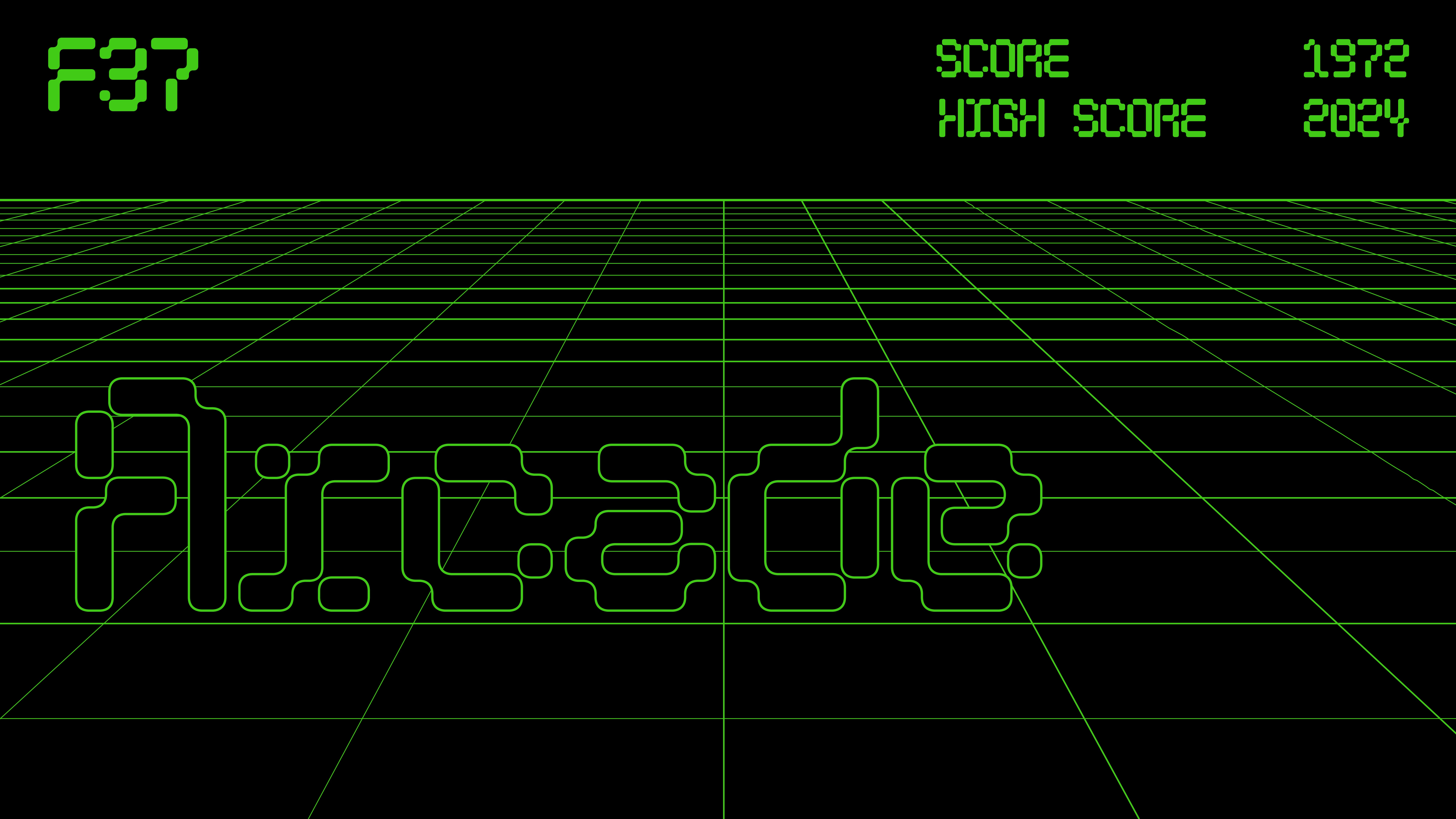
F37 Arcade
Leap back in time with F37 Arcade, a typeface inspired by the iconic arcade aesthetic and informed by Wim Crouwel’s grid-based work.
F37 Arcade is a modular, mono-spaced, and stencil typeface. With a unique combination of modularity and stencil, the letterforms are reminicent of falling Tetris blocks that appear to be on the brink of slotting together. Also prominent throughout the typeface are rounded corners. These reference the rounding effect CRT glow has on type within arcade games. F37 Arcade is further packed with ligatures and alternate characters to keep you playing for hours.
Alexandra Franks
The Designer
Alexandra Franks is a freelance graphic designer and illustrator based in sunny Edinburgh.
Graduating from Reading University with a first and honours, she has now found herself in the world of design. Trading in her paint brushes for the pen tool, Alexandra brings her blend of classically trained art skills and her new love of graphic design into her branding and illustration work.
Inspiration
F37 Arcade
Interview
Tell us about the inspiration behind your collaboration with F37®×. If it was an unused concept, what was the potential use case for it.
Having always been a lover of the early/retro videogame aesthetic, I felt inspired to create something that could easily slot into that landscape. Throughout my research, the font Moonbase Alfa (by Cornell Windlin, 1991) and Wim Crouwel’s grid-based typographic style heavily inspired me in creating F37 Arcade. This font plays into the nostalgia of early videogames, embracing the technical constraints of early digital typography.
When starting the process of creating your font, what typographic conventions did you look to break or experiment with? Or were there conventions of functionality you championed?
When looking for inspiration, I found myself drawn to the negative shapes within a stencil font. Combined with my love of retro gaming, this font marries these two concepts together.
Now that your typeface has launched, what would be your dream project to use your F37® typeface on?
The joy of fonts is that they can be used in any setting, and I would love to see someone inspired to create anything from the collaboration. However, to see someone use it in the videogame landscape would fit the style of the font perfectly.
What have you learnt through developing and creating your own typeface(s) with our F37® type designers?
I learnt that the possibilities of type are endless, even with all the typographic rules I have learnt throughout the process.
How would you describe your typeface in three words?
Nostalgic, Retro, Bold… and Quirky (I know that’s four).